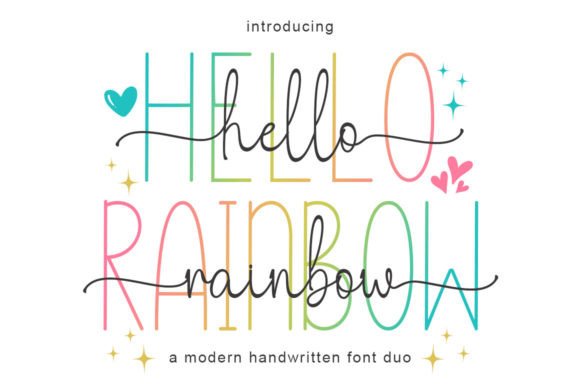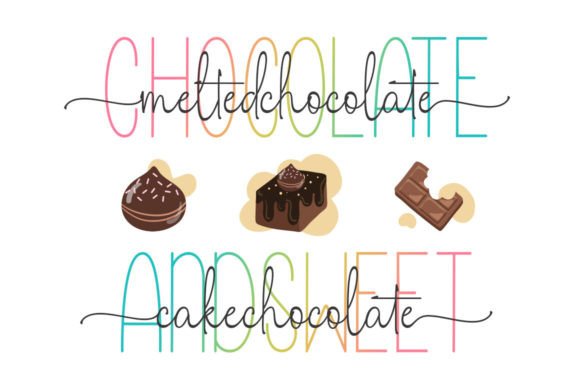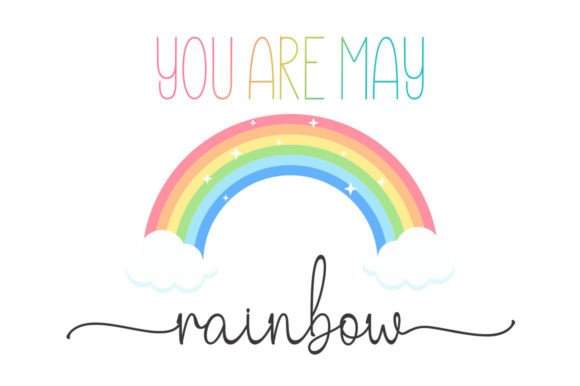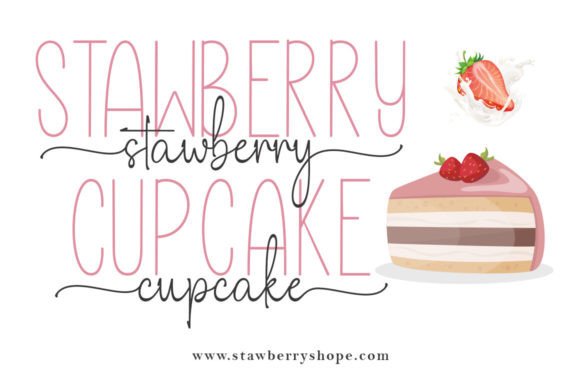
Hello Rainbow Duo Font
About the Hello Rainbow Duo Font
The Hello Rainbow Duo Font is here to transform your projects with its distinctive character and style. Hello Rainbow Duo, a smooth duo font that combines sans serif and script, serves a variety of uses. Whether embellishing a heartfelt greeting card or adorning a catchy title, this stunning typeface brings a romantic touch to every creation. Featuring PUA coding, Hello Rainbow Duo allows easy access to the gamut of glyphs and ligatures, ensuring seamless integration into any design canvas. This font is suitable for all your creations
Hello Rainbow Duo’s pairing of sans-serif and script lends itself well to projects requiring a touch of elegance and playfulness. It excels in logo design, short headlines, invitations, and social media graphics where its romantic feel can shine. However, its script component makes it less suitable for large blocks of body text or UI elements where readability is paramount.
Consider pairing the sans-serif component with a clean geometric sans-serif like Montserrat for a modern feel, or a classic serif like Garamond for a more traditional balance. The script element pairs well with a simple, clean sans-serif like Lato to avoid visual clutter.
The overall personality is best described as romantic and playful, yet sophisticated. Brands focused on beauty, fashion, weddings, or artisanal goods would find this font particularly fitting.
Hello Rainbow Duo Font Usage Examples
Hello Rainbow Duo Font Example